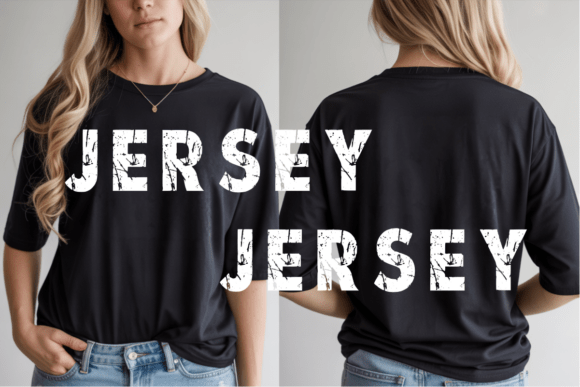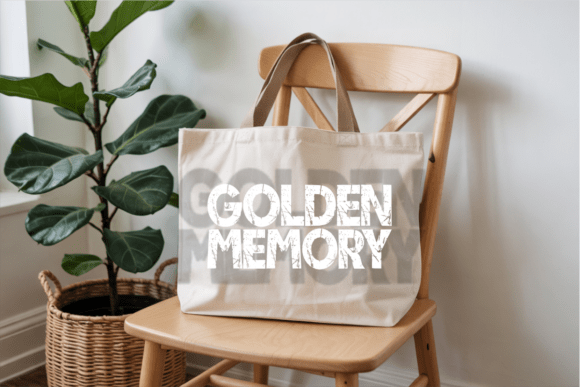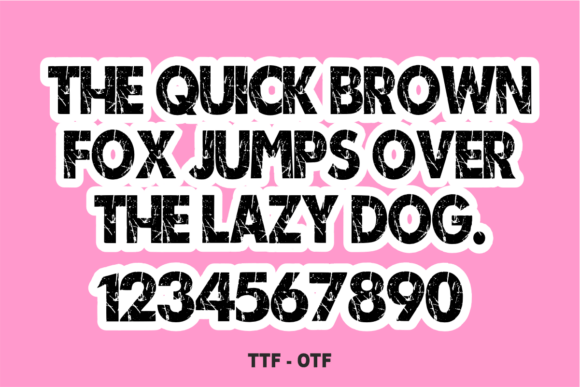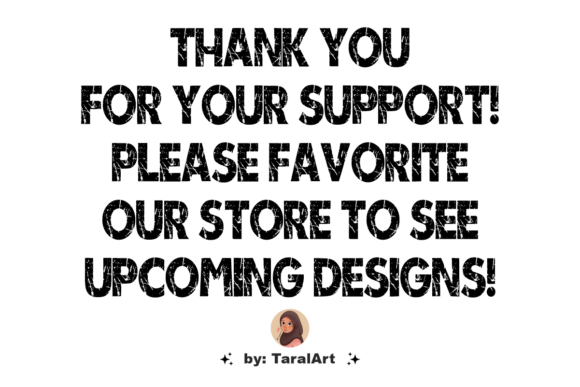
Modern Combat Font – Free Download
Introduction to Modern Combat Font
Command the room with the Modern Combat font, a heavyweight display typeface designed for maximum impact and grit.
This Modern Combat typeface features a massive, blocky structure with a โpremium grungeโ texture that suggests strength, resilience, and action It is the ideal Modern Combat font for gaming headers, movie titles, and fitness branding where a sense of power is paramount.
Key Features of Modern Combat Font
Why Choose Modern Combat Font?